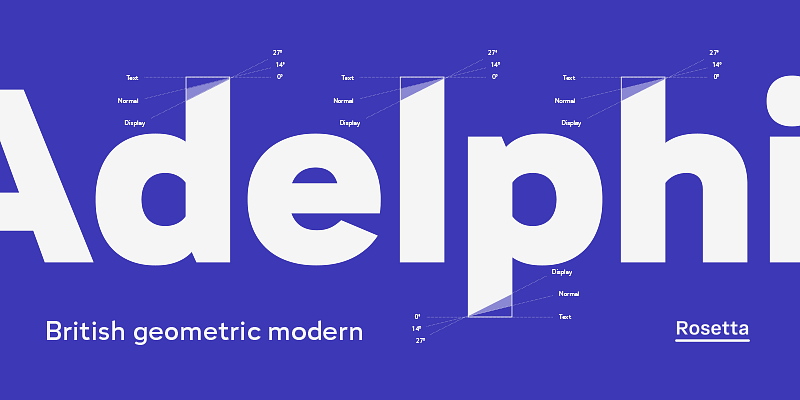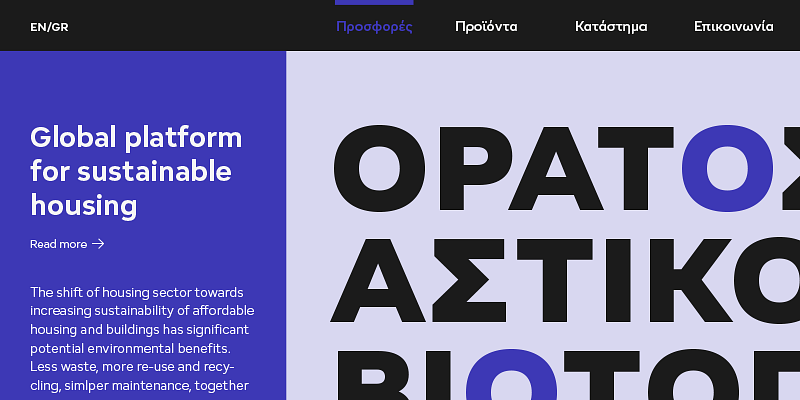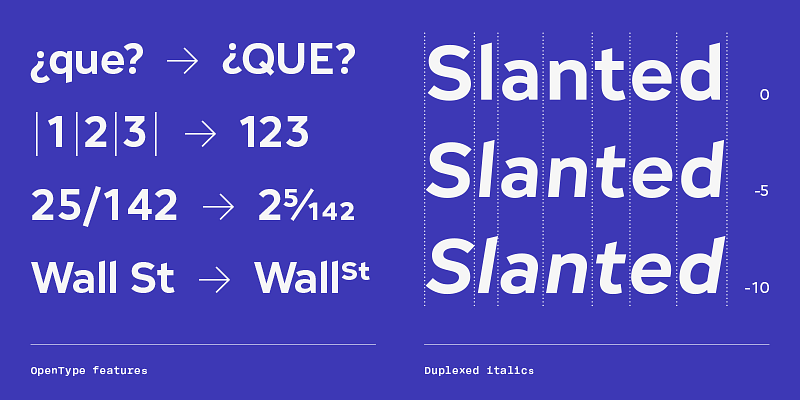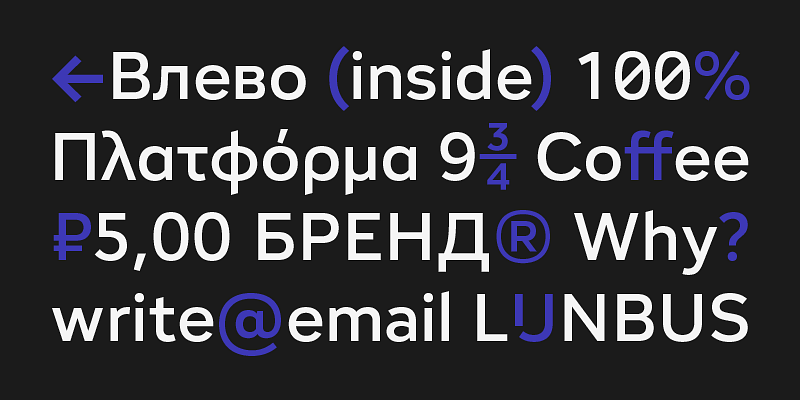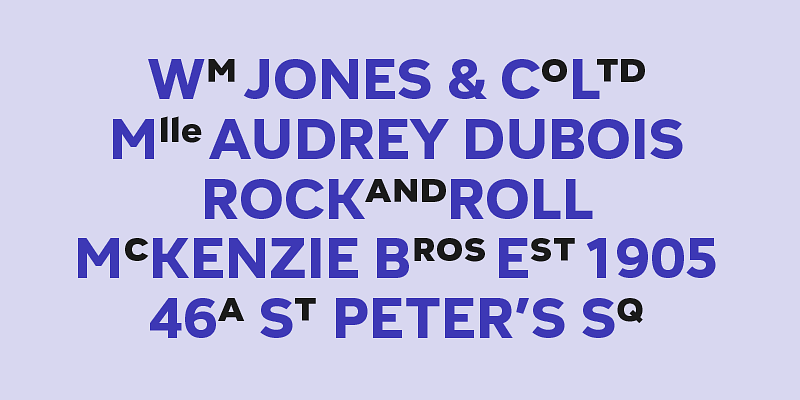
Adelphi is an approachable geometric sans-serif influenced by the British modernist tradition. The comprehensive, and durable type system comes with a pragmatic set of features including a wide array of weights, uniwidth italics, and variable extenders from sharp (Display) to flat (Text).